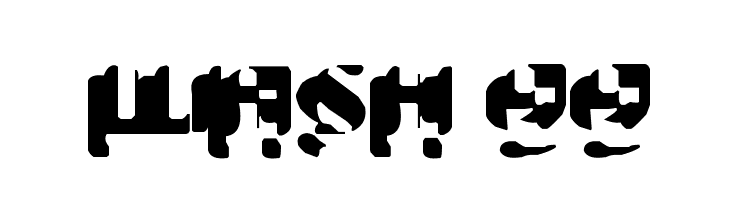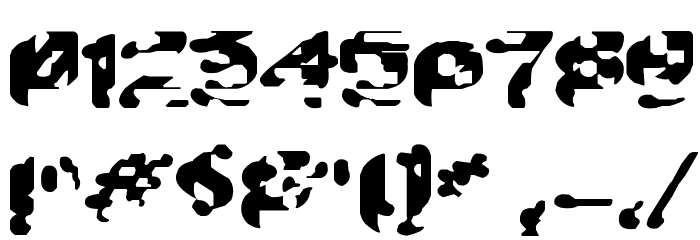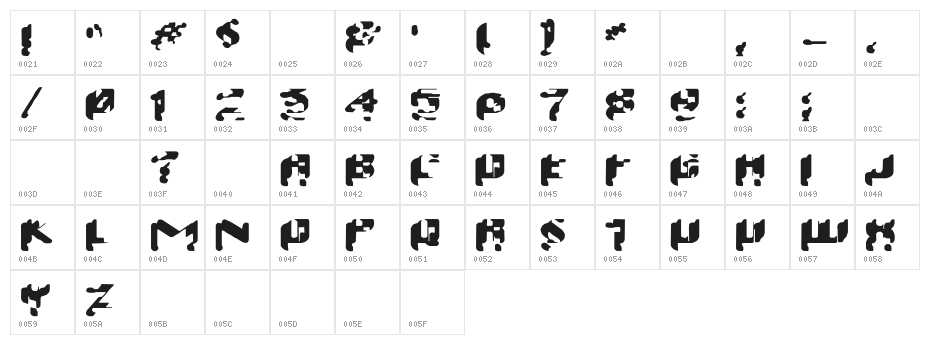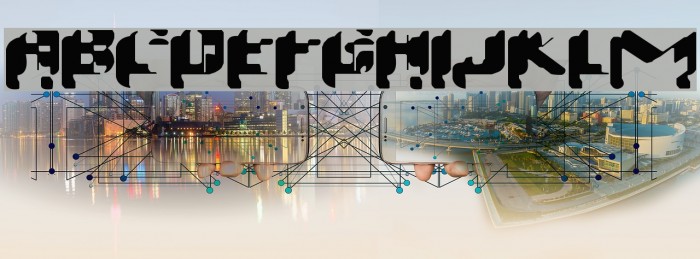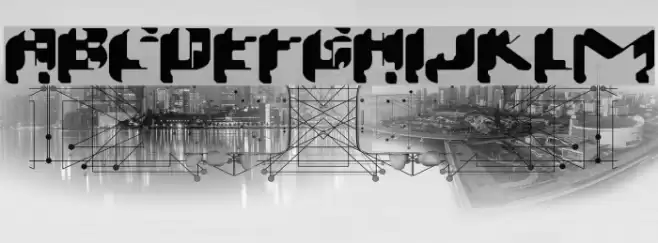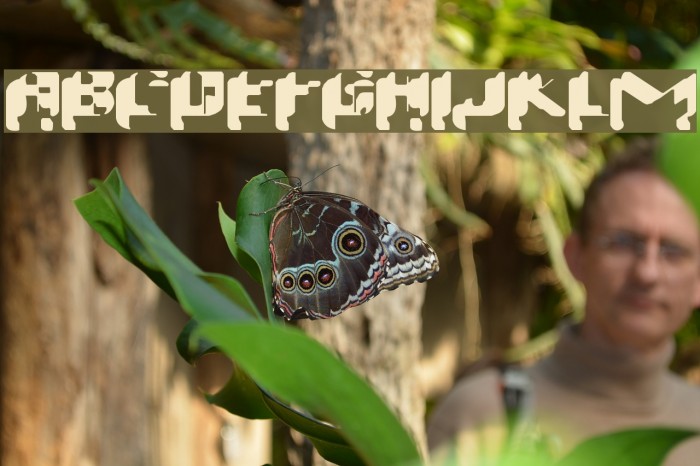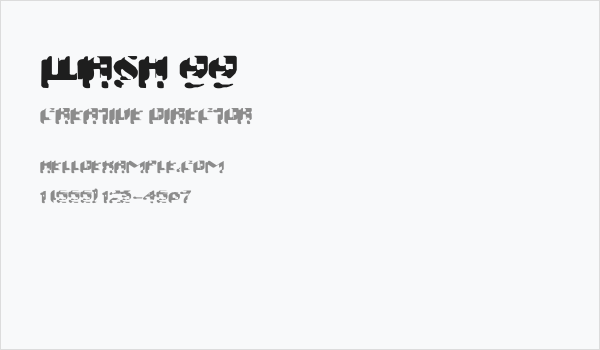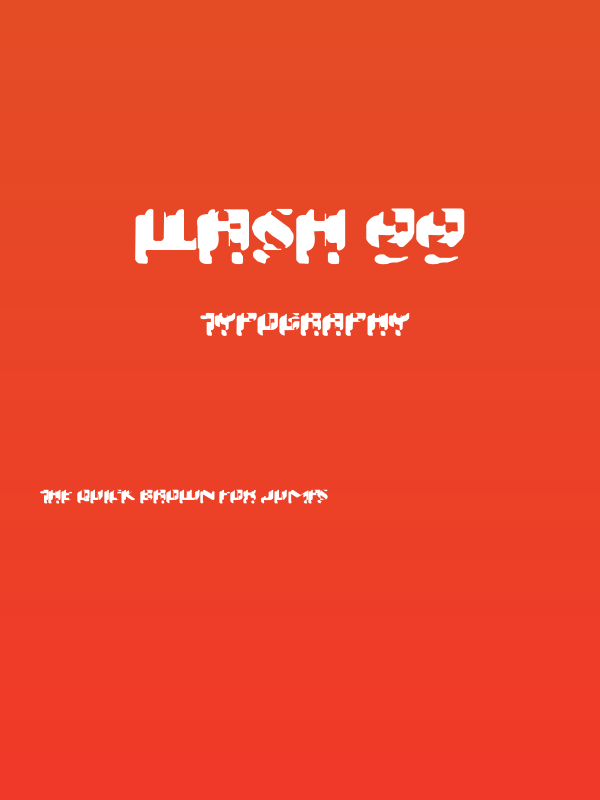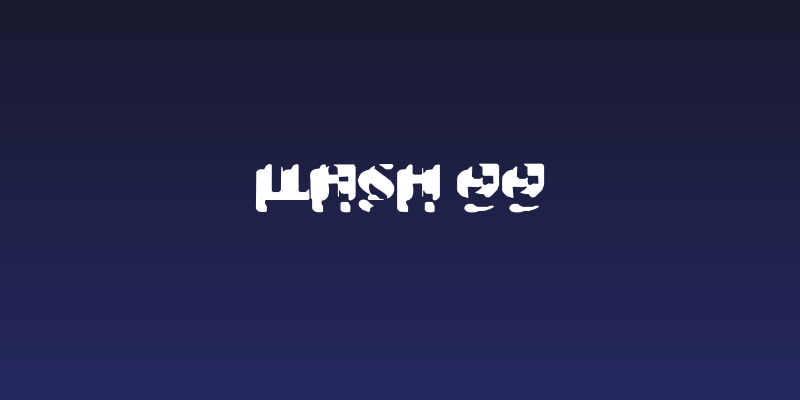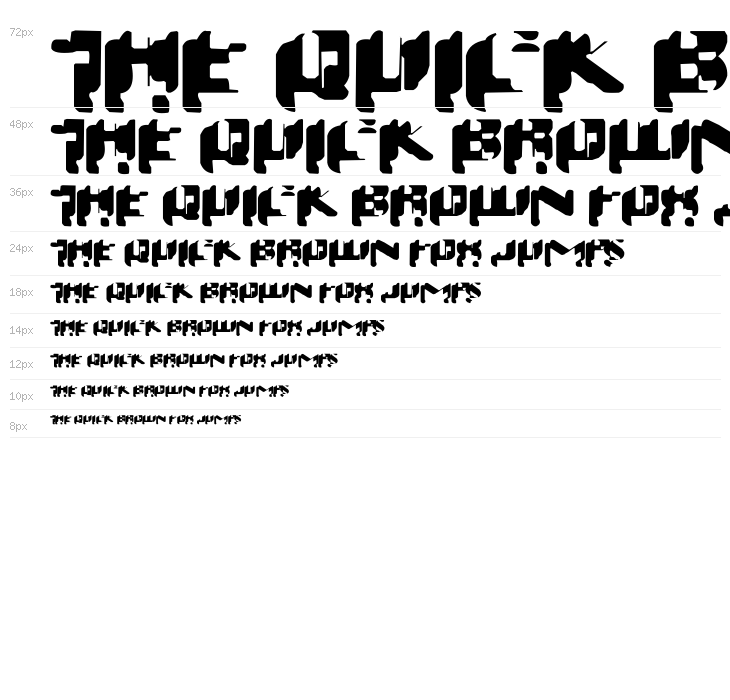
Wash 99 Font
Wash 99 Description
This font features a bold, distressed style with a stencil-like appearance. The characters are heavily stylized, with irregular edges and a fragmented look that gives an impression of wear and tear. The uppercase and lowercase letters maintain a consistent design, while the numbers and special characters follow the same rugged aesthetic. This font is highly decorative, making it suitable for projects that require a strong visual impact.
Overall StyleModern, Urban
Use CaseHeadlines, Posters, Logos
Proposed ProjectsIdeal for urban-themed posters, album covers, graffiti art, or any project needing a bold, edgy look.